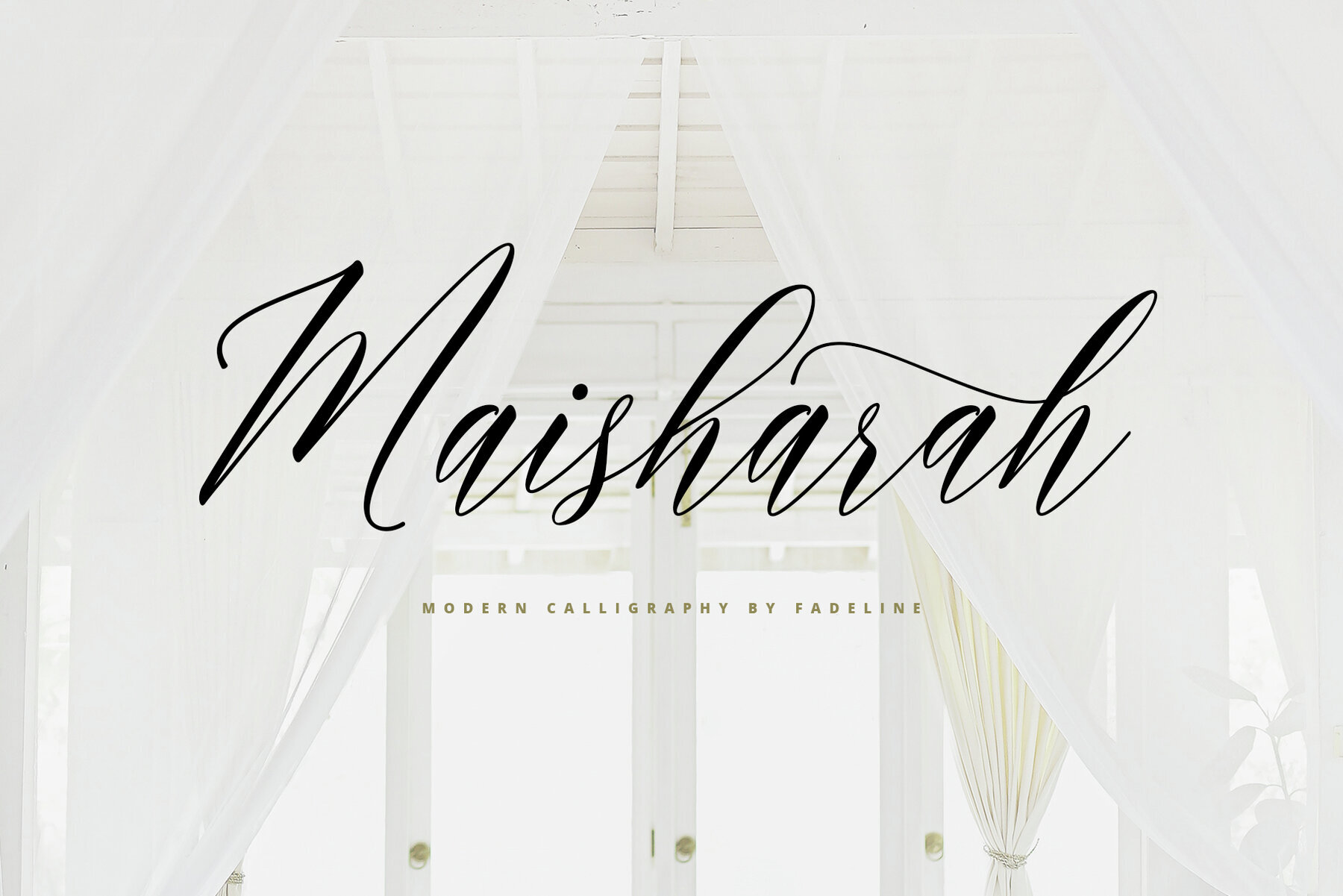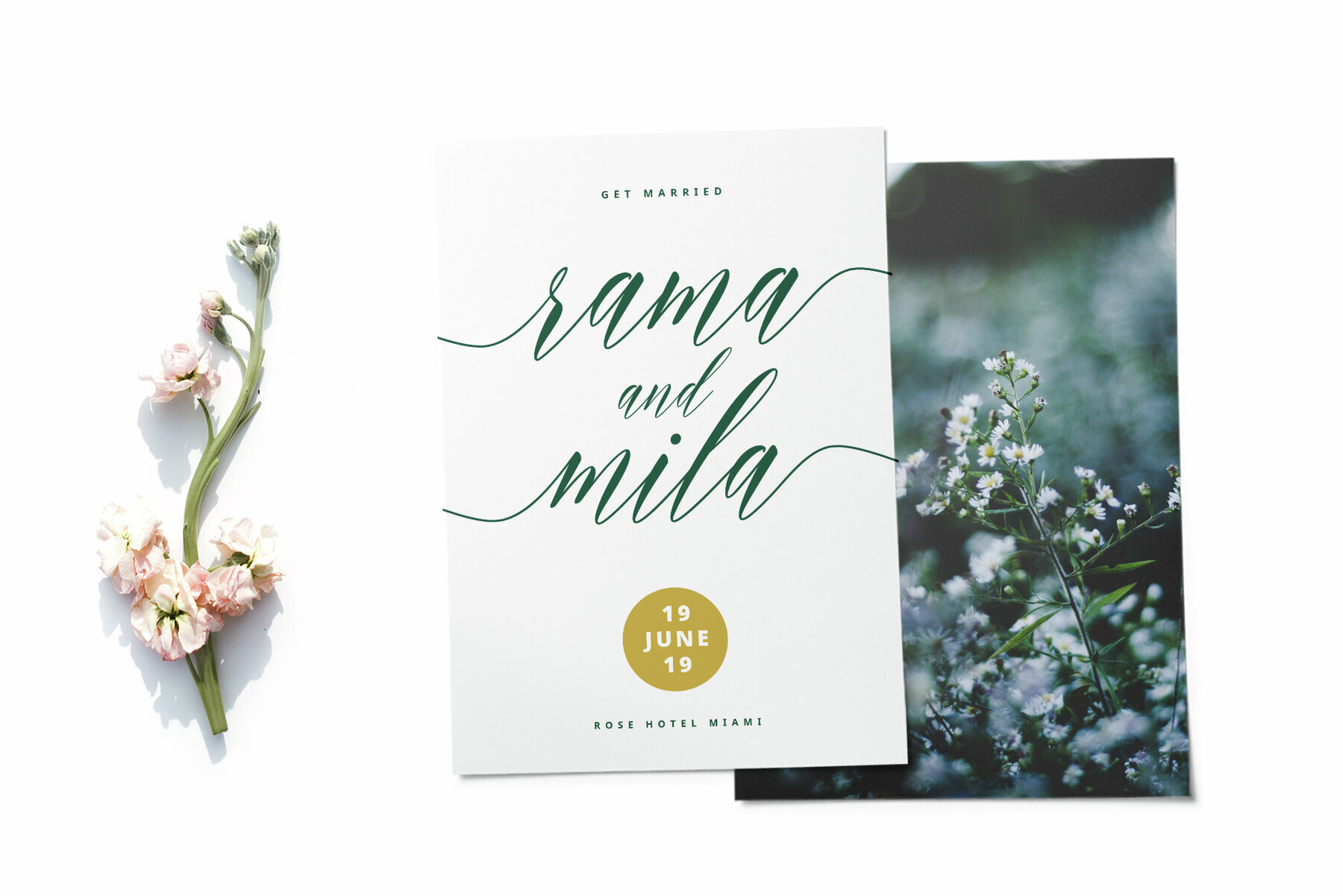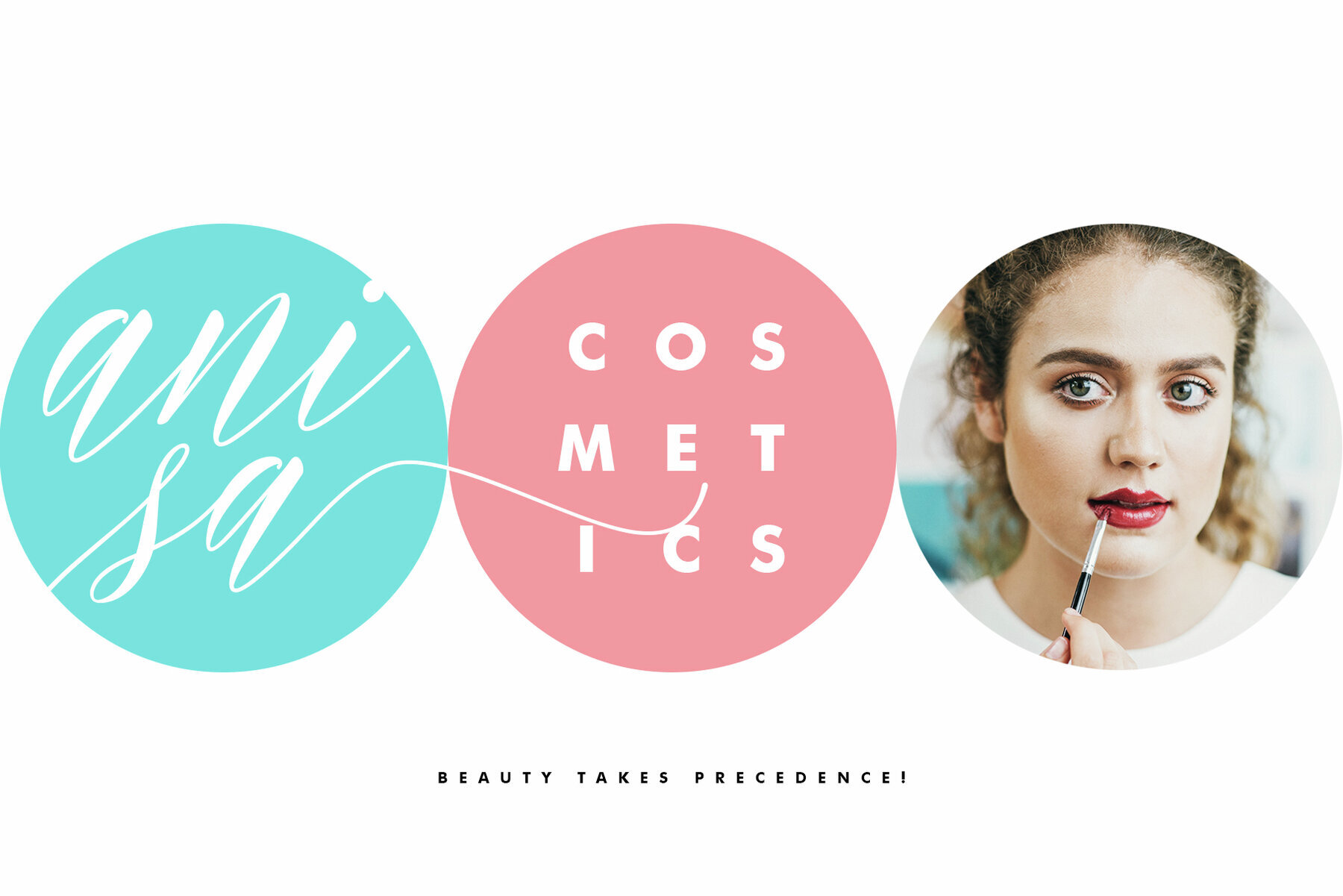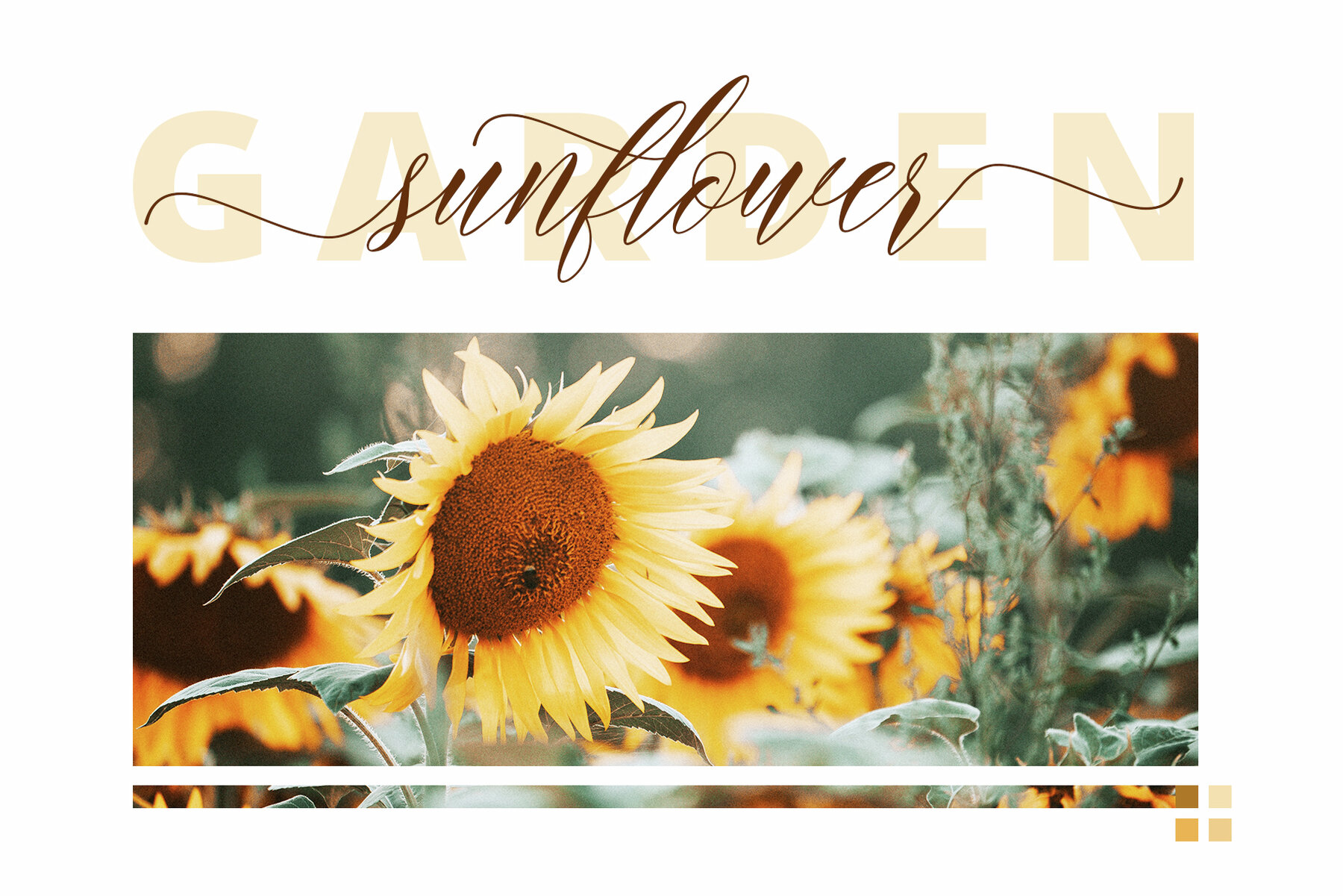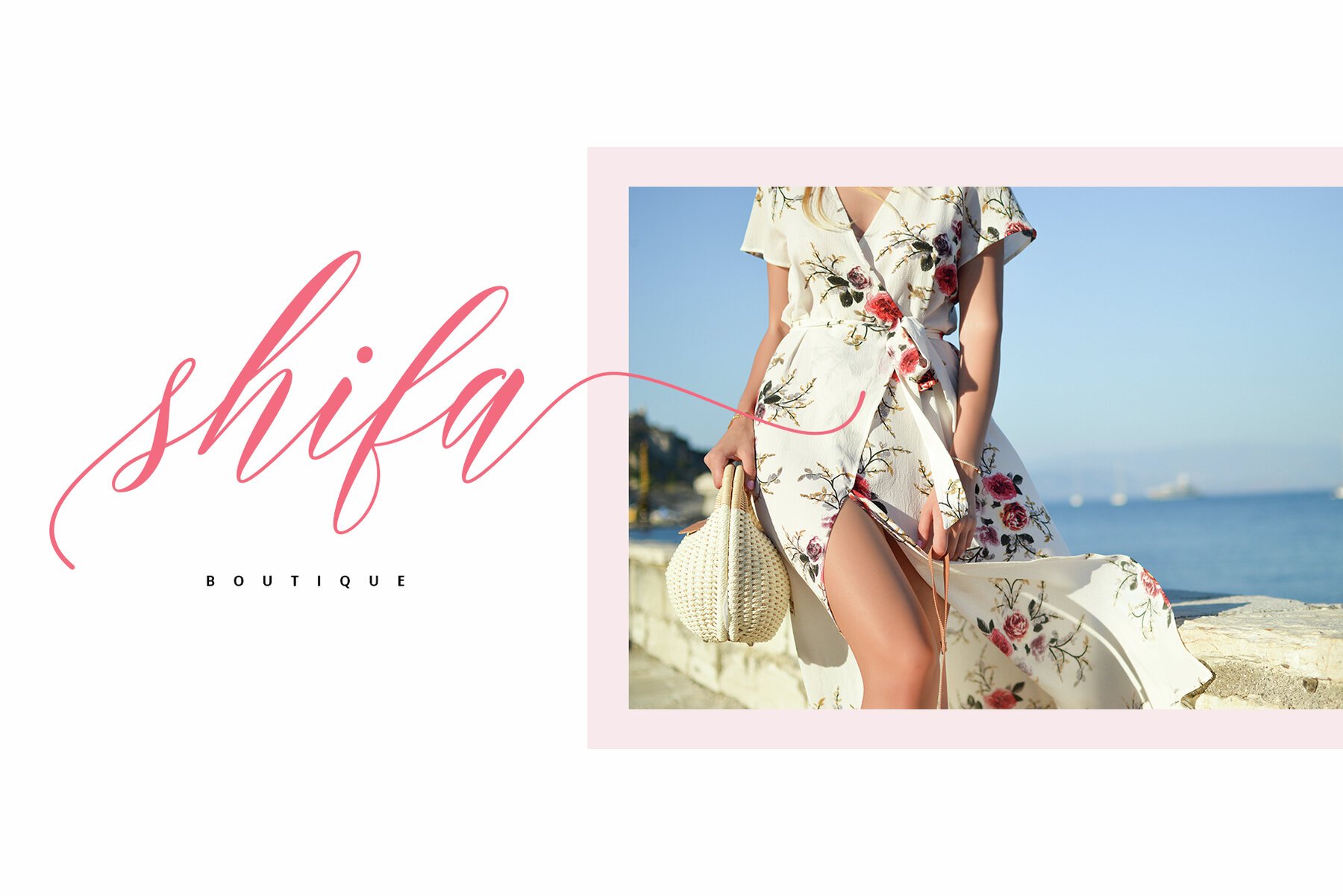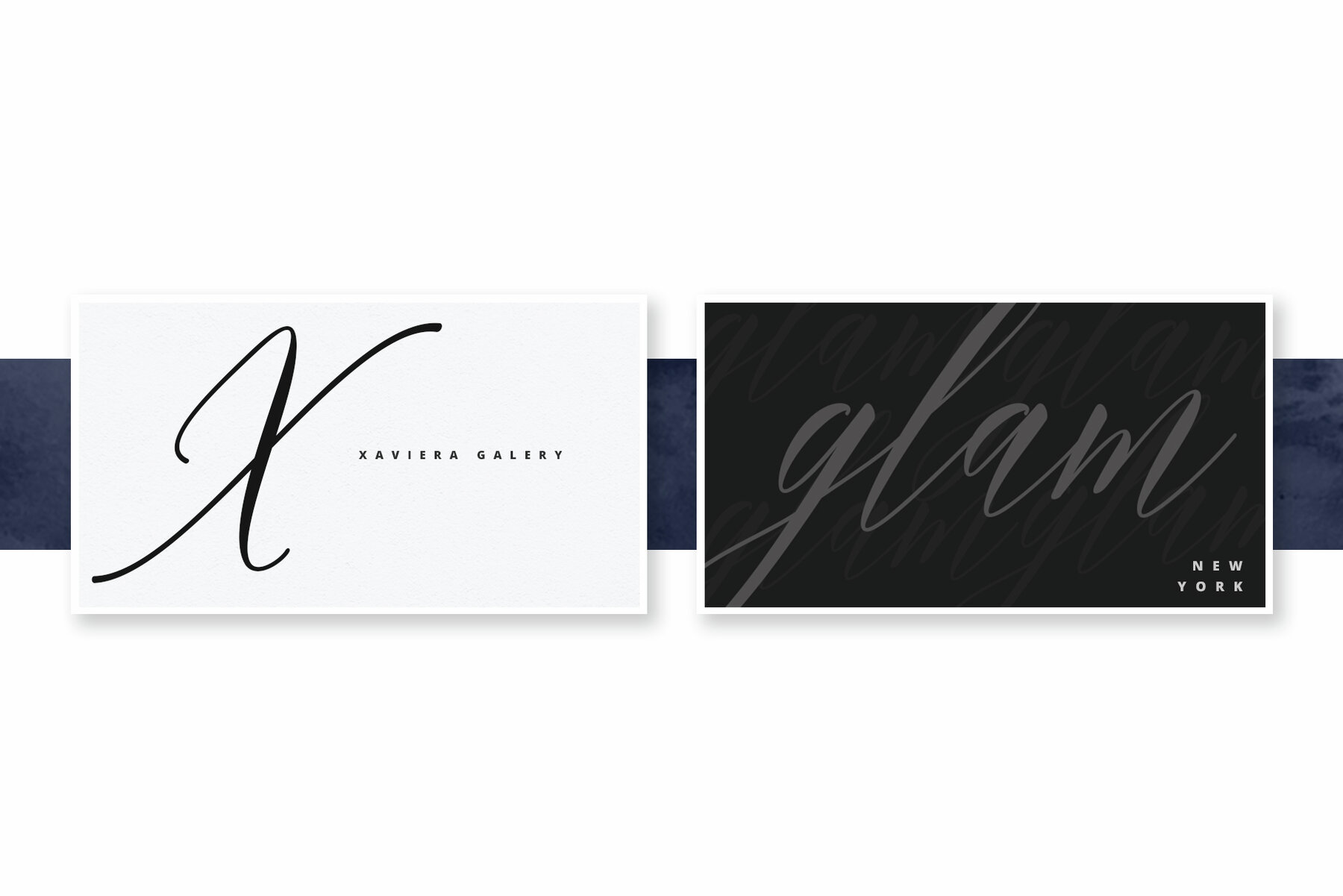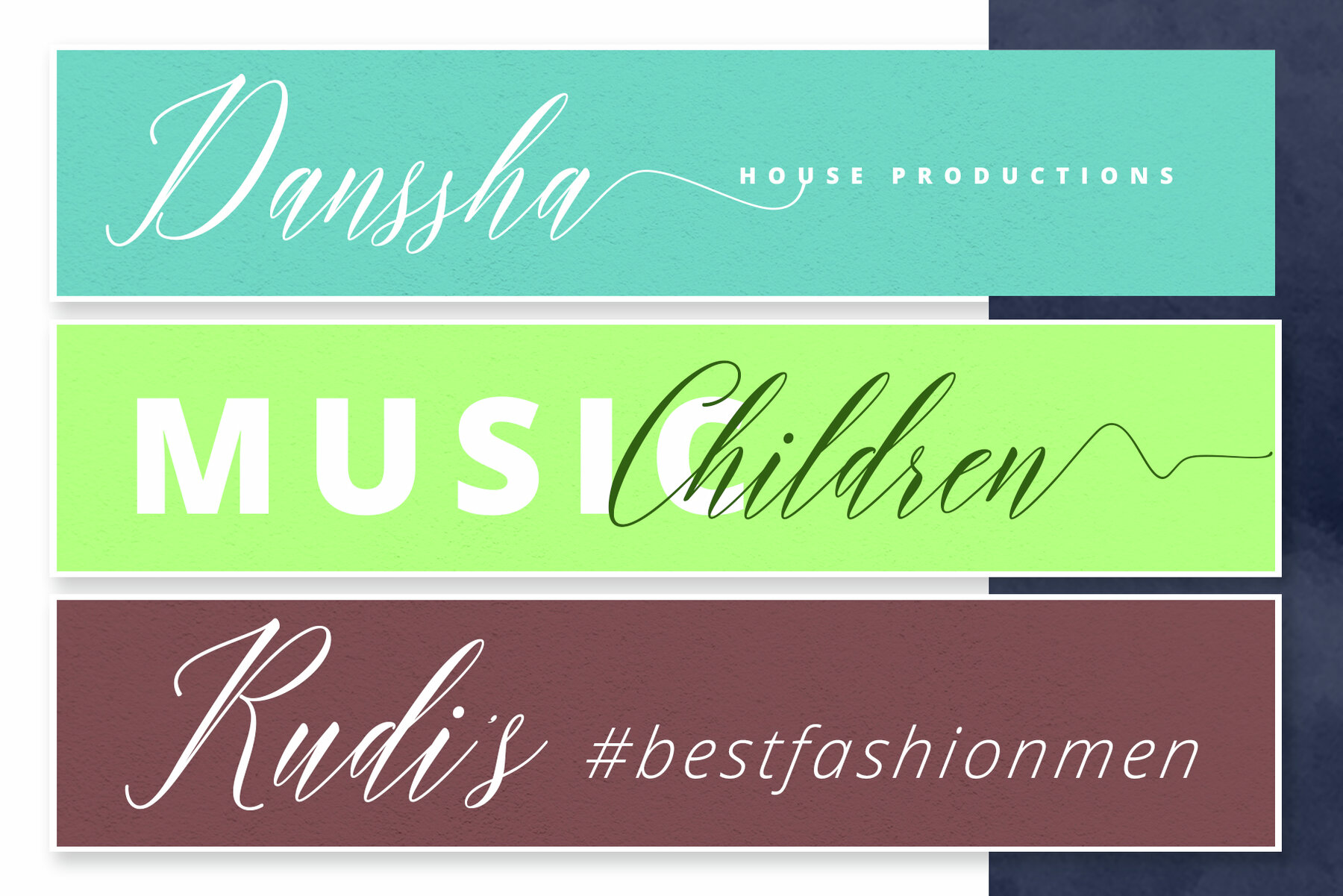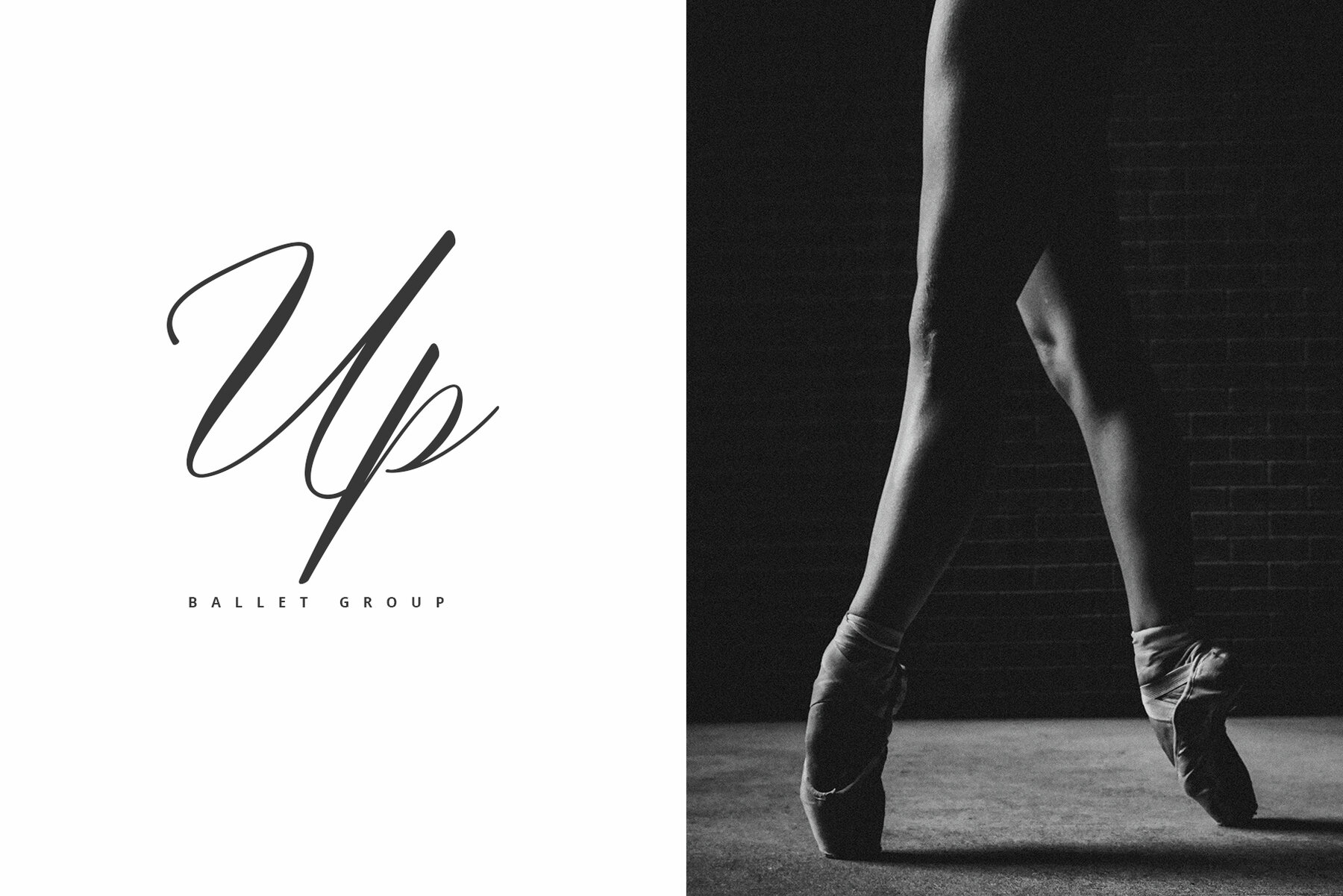
Maisharah Font
Maisharah Script
Introducing Maisharah, a modern script calligraphy typeface that exudes unique flow and elegant personality. Perfectly crafted for creative endeavors, this font enhances a wide range of designs with its distinctive style.Maisharah Typeface